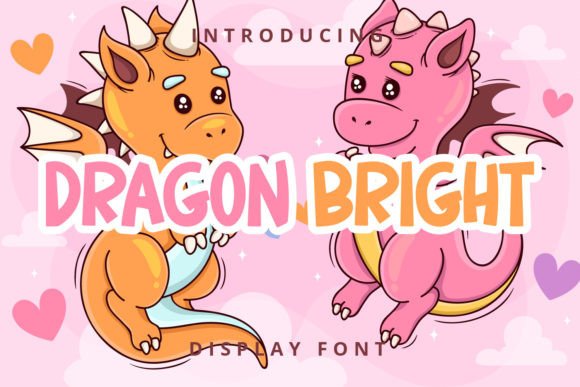
Embark on a typographic odyssey through the realm of Dragon Bright - a font family engineered to capture the essence of enchantment and transform your creative endeavors into masterpieces. Crafted with meticulous care by the visionary designers at Planetz Studio, Dragon Bright fonts ignite your imagination, adding a touch of magic to every design.
Swayed by the allure of Dragon Bright's enchanting characters, you'll be drawn into a world where creativity and imagination intertwine. Each letter, painstakingly designed to reflect the vibrancy of your ideas, becomes a testament to your boundless potential. Unleash the power of self-expression and watch your projects come to life with the allure of Dragon Bright.
Designed with versatility as its guiding principle, Dragon Bright graces a myriad of applications, from captivating cards to eye-catching branding, alluring labels, and countless other design wonders. Its adaptability shines brightest when paired with vibrant colors, allowing you to craft designs that captivate and inspire.
With Dragon Bright, you'll find yourself effortlessly conjuring designs that radiate warmth and whimsy. Whether it's a children's book that sparks imaginations or a whimsical invitation that ignites curiosity, Dragon Bright becomes your faithful companion, transforming your creative visions into tangible realities.
Embrace the resplendent charm of Dragon Bright today and embark on a creative journey like no other. Allow your imagination to soar, your creativity to flourish, and your designs to captivate the hearts of all who behold them.